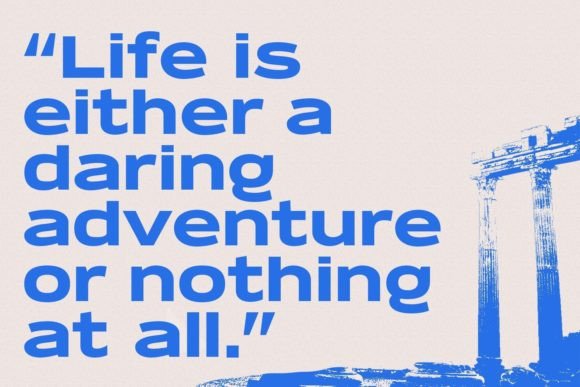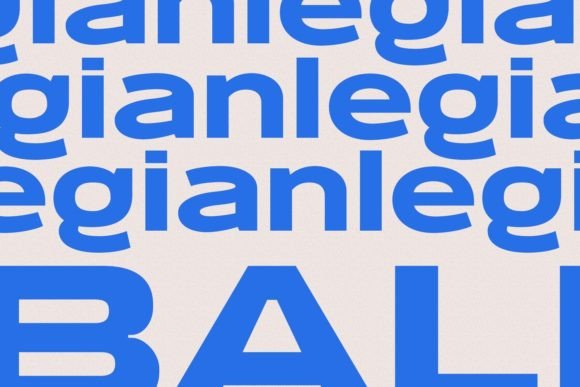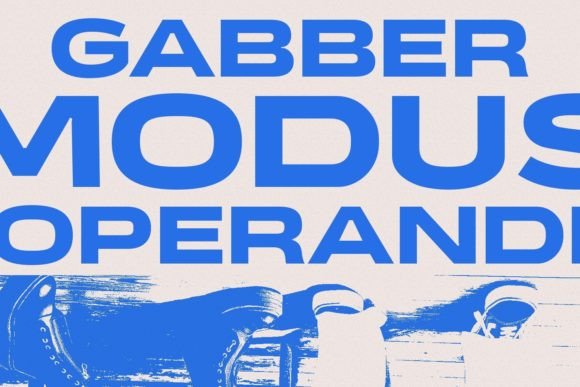
Introduction to Belgro Font
Belgro is a modern and assertive sans serif font.
This font reads as strong, confident, and dynamic and can add tons of character to your designs .
Key Features of Belgro Font